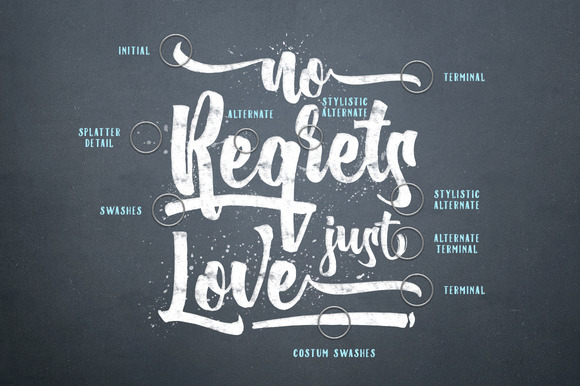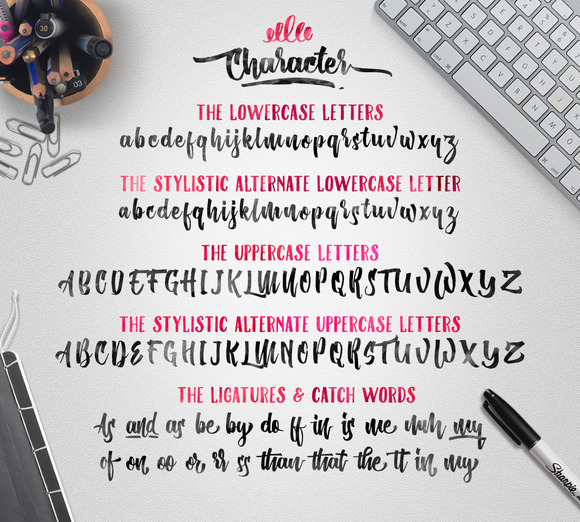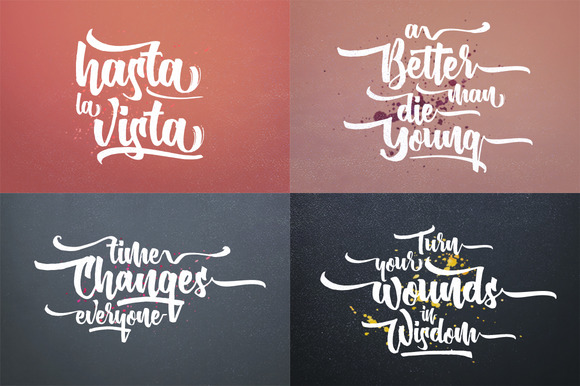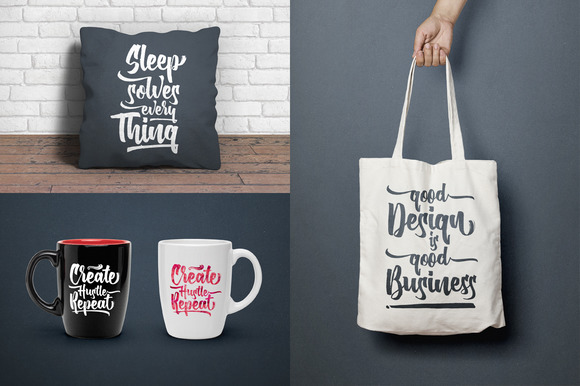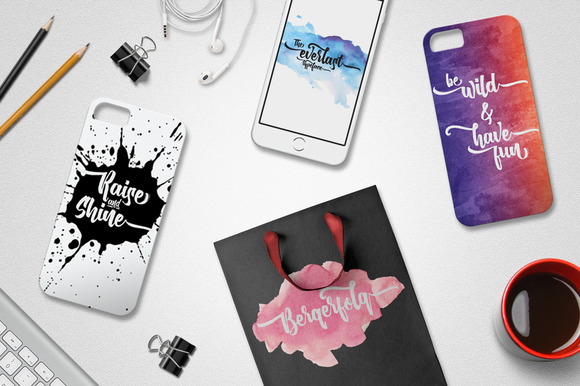
The Everlast Typeface
Introducing The Everlast Typeface, a hand scripted font with pen brush style, carefully designed with harmony in every single character. The Everlast Typeface and a touch of the extra makes this font look great and stylist. Plus the features that allows you to mix and match pairs of letters to fit your design.